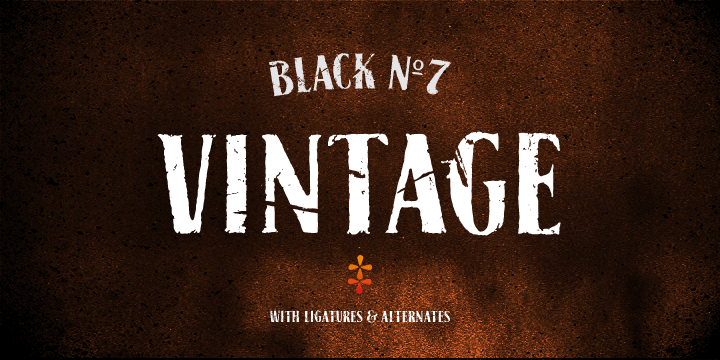
• Black No.7
Inspired by the famous Tennessee whiskey logo from 1866, the Black No.7 has over 400 glyphs including ligatures, alternates and special characters.